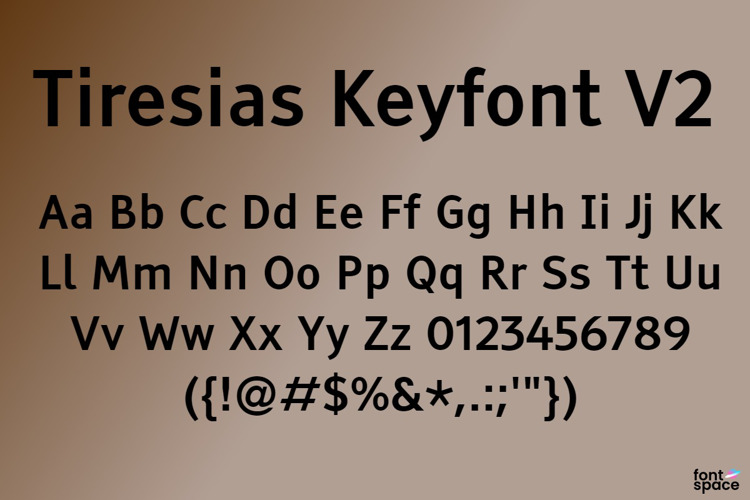
Tiresias Keyfont Font
Tiresias is a family of realist sans-serif typefaces that were designed for best legibility by people with impaired vision at the Scientific Research Unit of Royal National Institute of the Blind in London.
Tiresias Keyfont – for labeling the tops of keyboards, PIN pads, appliances, remote controls (features exaggerated punctuation marks)